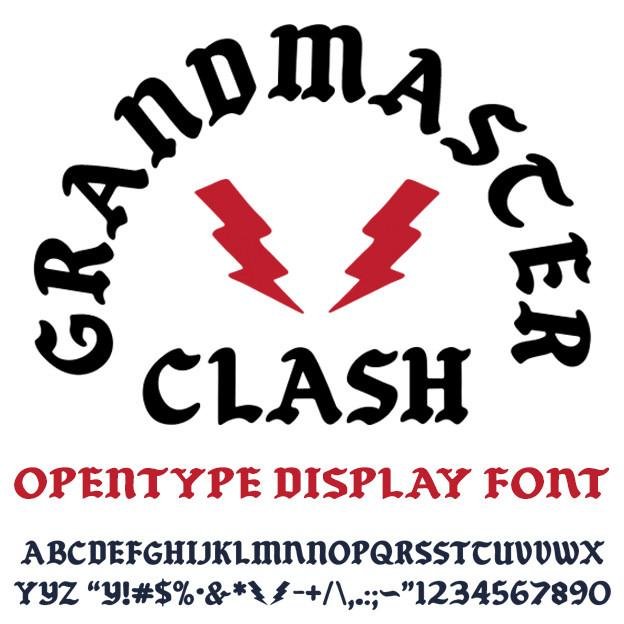
Grandmaster Clash Font
From what I can gather from internet searches (so take it with a grain of salt) there was a tee shirt shop in Brooklyn in the 70's and 80's where this typeface orginated. The legend goes that an Old English / Blackletter typeface was simplified enough so it could be cut out of felt letters and ironed on to shirts and jackets of many a rapper and b-boy crew. From Grandmaster Flash to theRocksteady Crew, Biz Markee and Joe Strummer visiting on tour with the Clash. I couldn't find a digital version of this font anywhere so I decided to make one. With a focus on making similar replica shirts of that era - I didn't include much for extra characters but I did throw in some alternate Y's and T's based on different versions I've seen (Do you Like Big Audio Dynamite's "Y" or the version on Joe Strummmer' s "C. City Rockers" shirt?). Either way I hope you like the font. Available in Opentype format by clicking below.